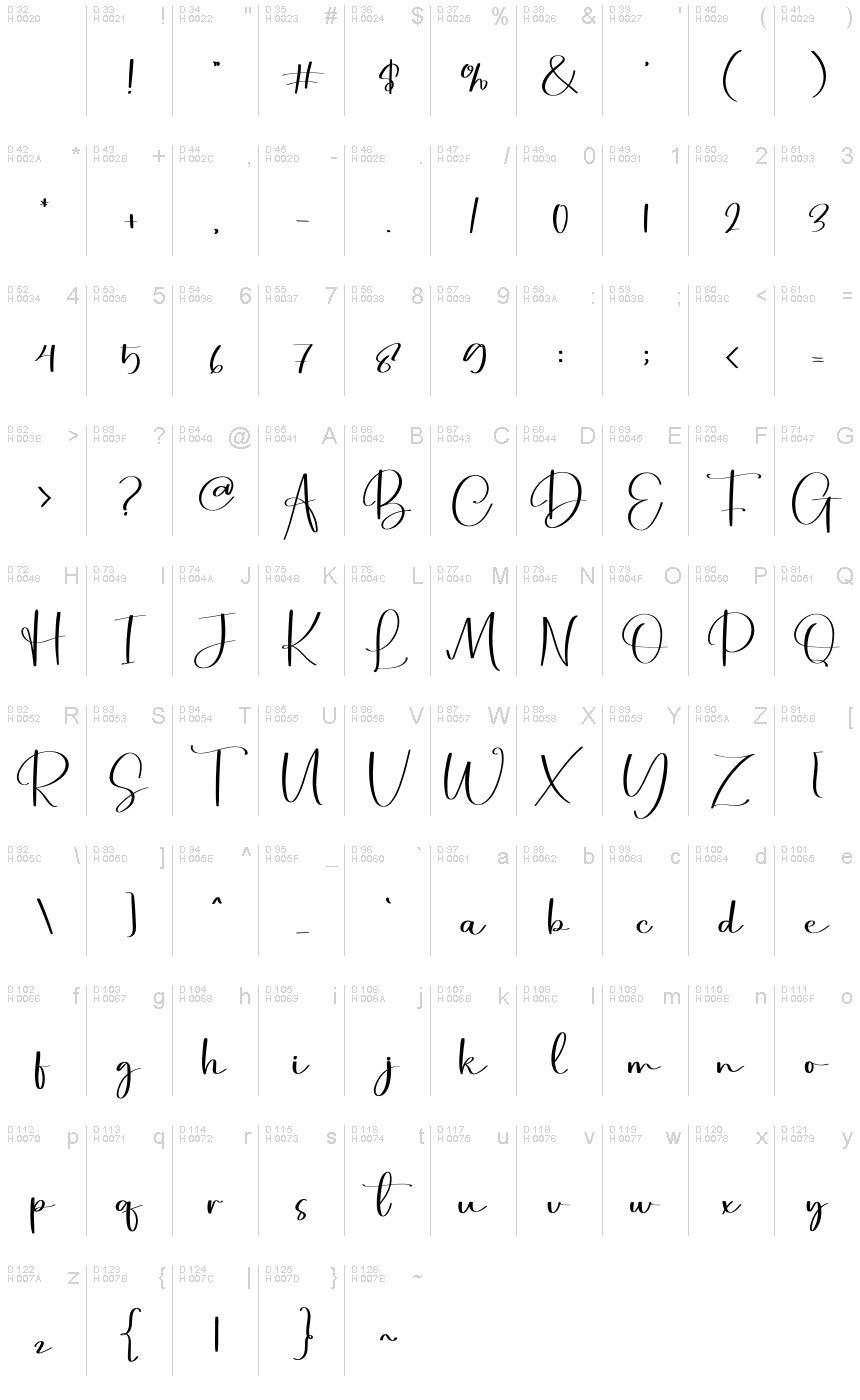
Psychology
Psycho-logy, crafted by FreshtypeINK, is a mesmerizing handwritten font that exudes a captivating blend of elegance and personality. Its organic, fluid strokes convey a sense of artistic expressiveness, while the letter forms maintain a harmonious flow. The font's distinctive character evokes a sense of authenticity and individuality, making it an alluring choice for a wide range of design applications.
Psycho-logy's versatility shines through its ability to seamlessly integrate into various design contexts. From editorial layouts and branding materials to social media graphics and packaging, this font can breathe life into projects that demand a touch of handcrafted charm. Its adaptability allows designers to create visually arresting compositions that resonate with audiences on an emotional level.